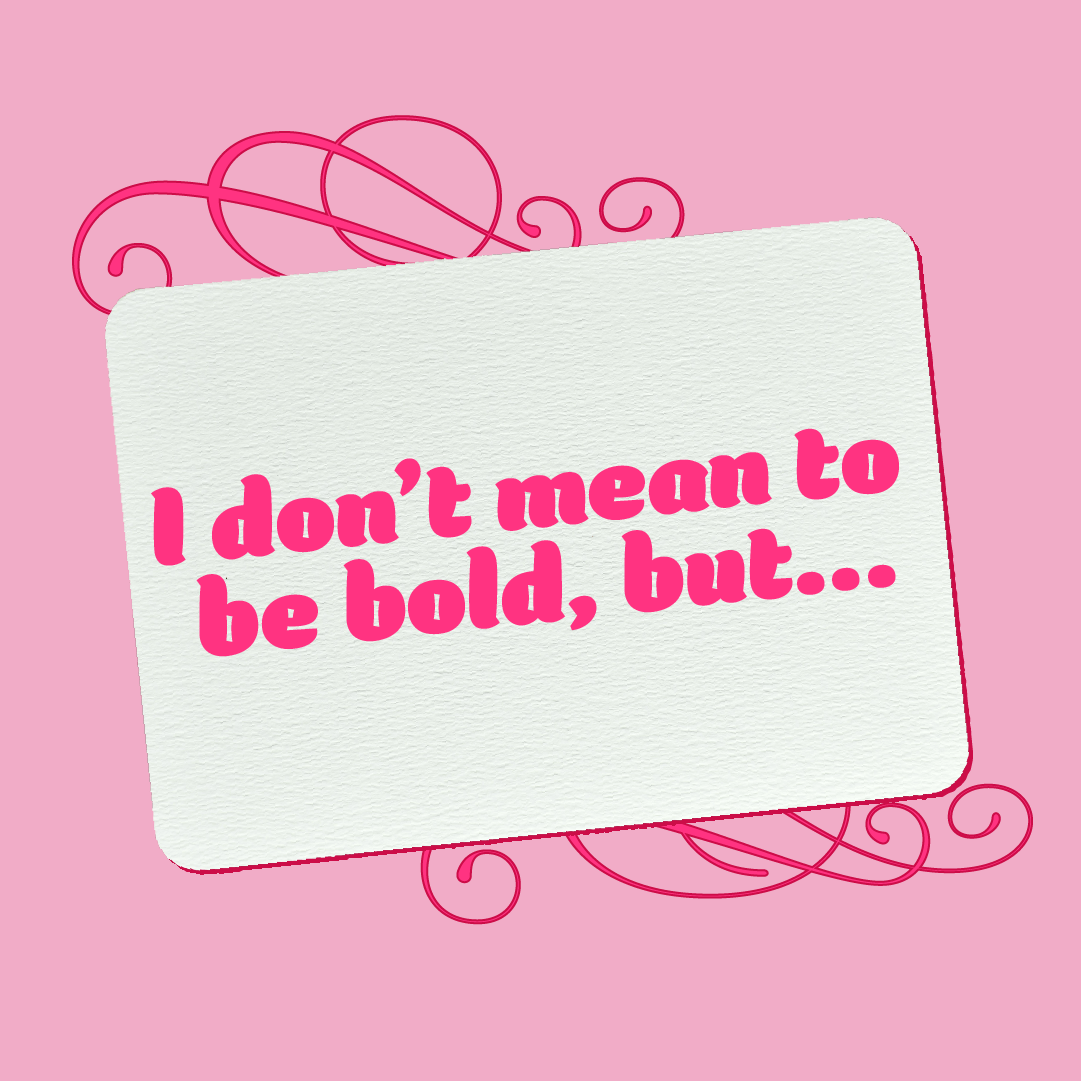
Lyra derives from an Italian Renaissance script that might have developed further if metal type had not broken the evolution of broad-nib pen calligraphy. Lyra evokes the romantic feel of handwritten letters, making it ideal for a heartfelt Valentine or vintage-inspired stationery.
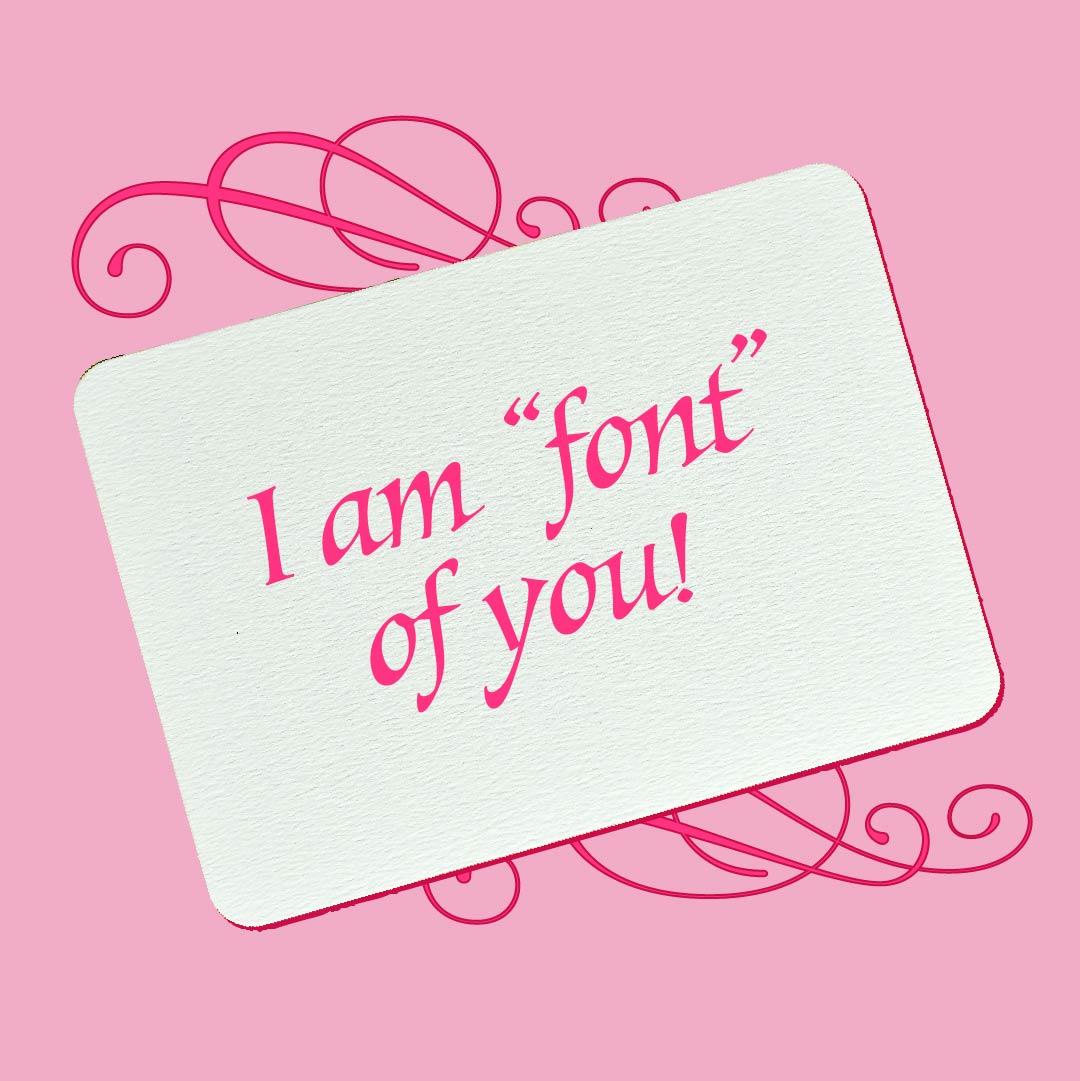
Exact comes from the early days of design, when you were armed with nothing more than rubber cement, X-Acto knives, and a love for press-on letters. Exact brings a strict, unyielding neutrality—with a twist of '70s funk in the bolder weights. It’s the kind of font you use when you want to send a love note that is both emphatic and realistic.
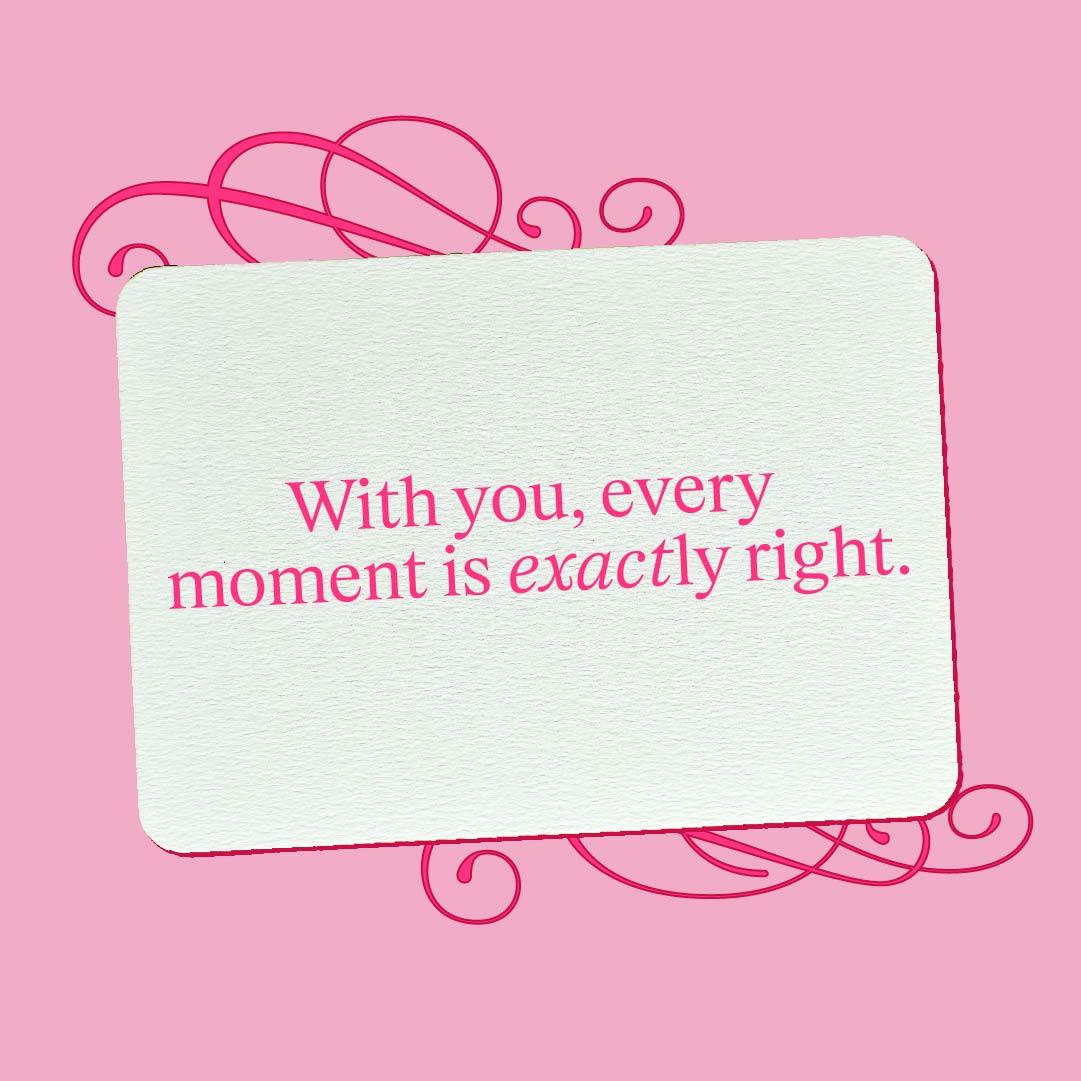
Auberge, named for the French word for hotel, combines elements of Bâtarde and Coulée alphabets. Overflowing with alternates, swashes, and ornaments, Auberge is ideal for display settings like wine labels, invitations, and stationery. If you need to describe your love in a stylish way, Auberge fits perfectly.
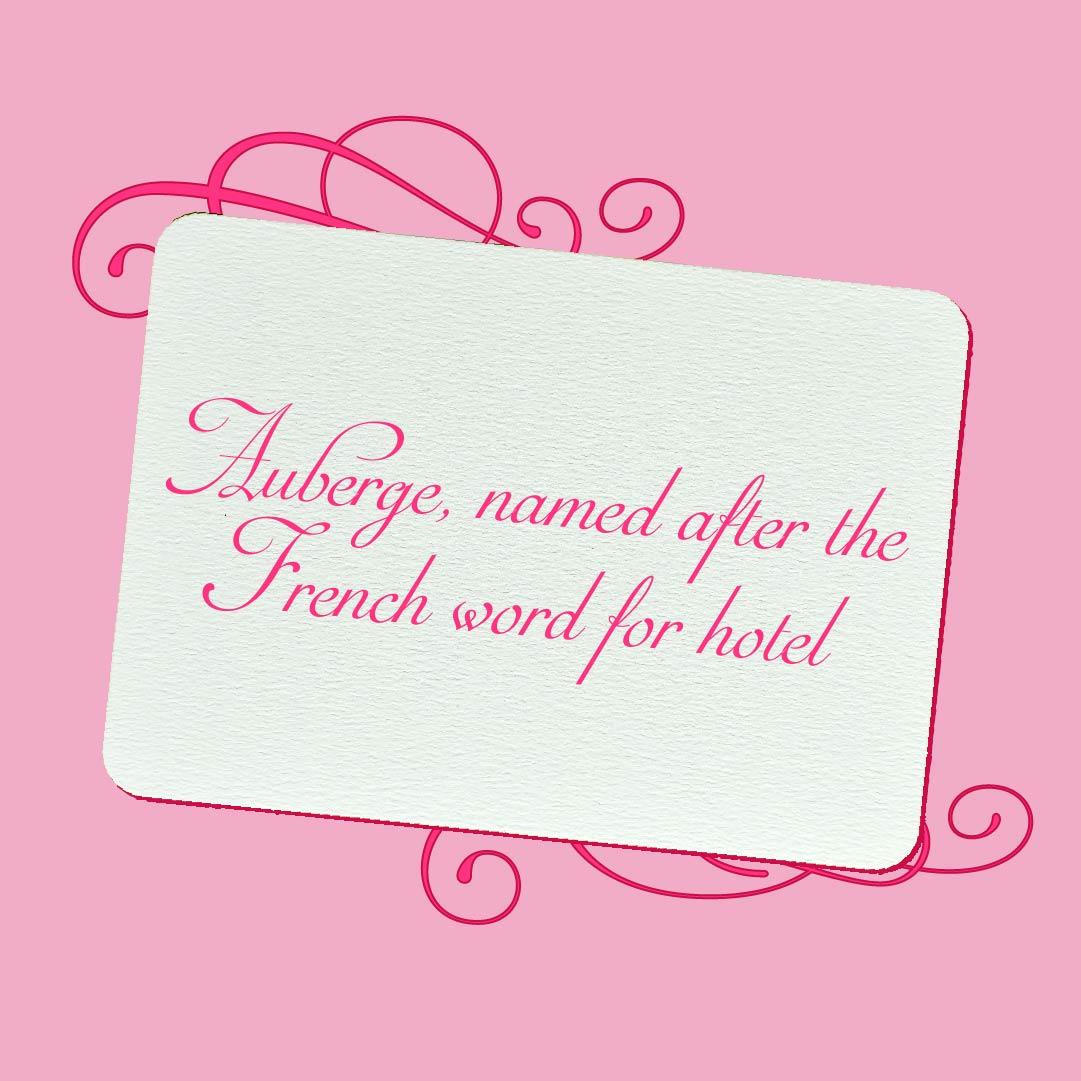
Inspired by the powerful beats of Candombe—a spirited Afro-Uruguayan rhythm honored as intangible cultural heritage—Mazumbá is nothing short of a celebration. It’s wild, aggressive, and brimming with personality, capturing the essence of its musical inspiration through bold, dramatic extremes and playful, subtle midpoints. Whether you’re creating a head-turning love letter or a fun, vibrant Valentine’s Day card, Mazumbá’s high-energy aesthetic ensures your words dance right off the page.